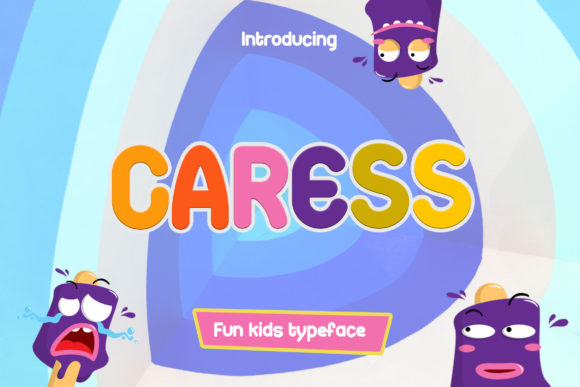
Prepare to be mesmerized by Carees Font, a captivating display font that exudes joy, originality, and a touch of eccentricity. This enchanting creation by rometheme is not just a font; it's a gateway to unleashing your creativity and making your designs shine brighter than ever before.
Indulge in the whimsical charm of Carees Font, where each letter dances with a playful, childlike innocence. Its playful spirit is guaranteed to add a touch of magic to any project, making it an ideal choice for kids' activities, school assignments, and any endeavor that calls for a sprinkle of cheerfulness.
But don't let its playful demeanor fool you – Carees Font possesses a hidden power that transforms ordinary designs into extraordinary masterpieces. With its ability to capture attention and evoke emotions, this font is the perfect choice for social media graphics, where standing out from the crowd is paramount.
Whether you're crafting eye-catching posts, captivating stories, or creating visually stunning pins, Carees Font will elevate your social media presence to new heights. Its unique character and undeniable charm will leave a lasting impression on your audience, making them eager to engage with your content and share it with the world.
So, why settle for ordinary when you can embrace the extraordinary? Choose Carees Font today and let your creativity soar. Its enchanting charm and captivating nature will transform your designs into works of art that will leave an unforgettable mark on your audience.